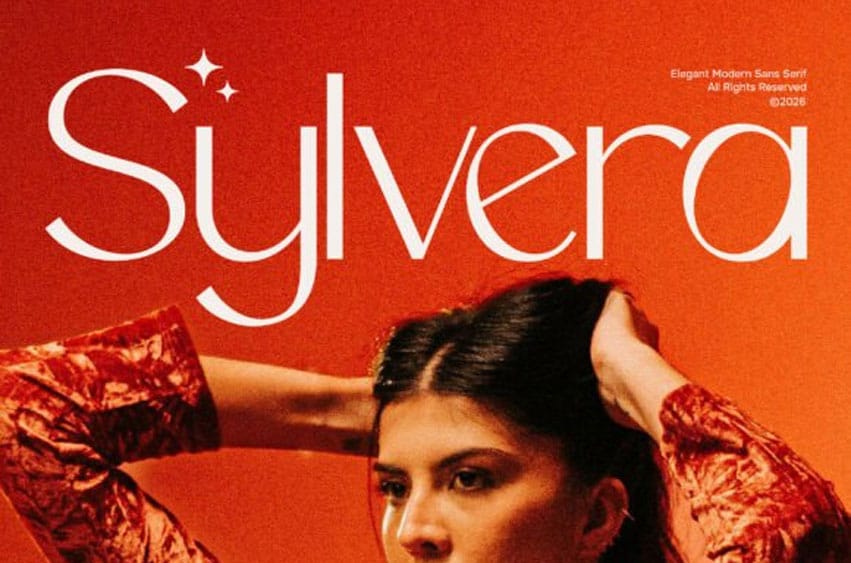
Sylvera Font is an elegant modern sans serif font crafted in a thin style that reflects sophistication, clarity, and refined beauty.
With its slim letterforms, smooth lines, and balanced proportions, Sylvera creates a light and graceful appearance that feels both contemporary and timeless.